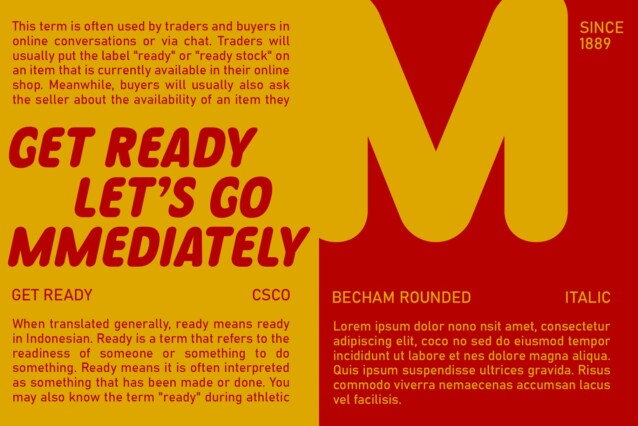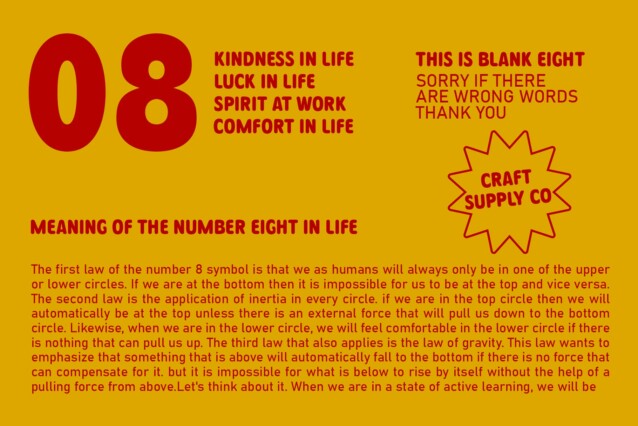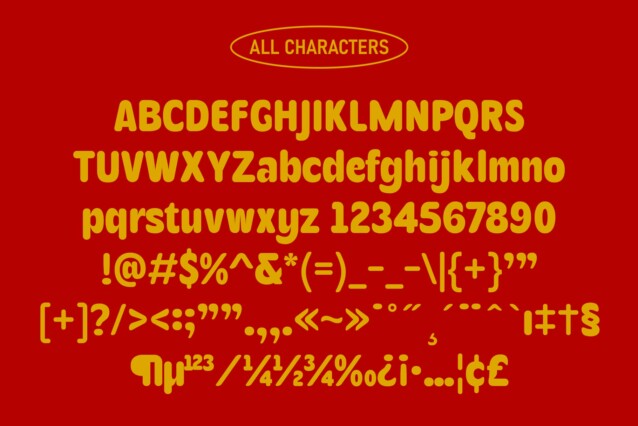
Becham Rounded Font
Becham Rounded Font: A Bold Yet Soft Sans Serif. Softness in Boldness Becham Rounded combines boldness with a touch of softness sans serif, thanks to its rounded strokes. This unique blend creates a striking visual impact while maintaining a gentle demeanor.
Low-Contrast Elegance With its low-contrast design, This font exudes understated elegance. The subtle variation in stroke weight ensures legibility without sacrificing its bold presence, making it suitable for various design applications.